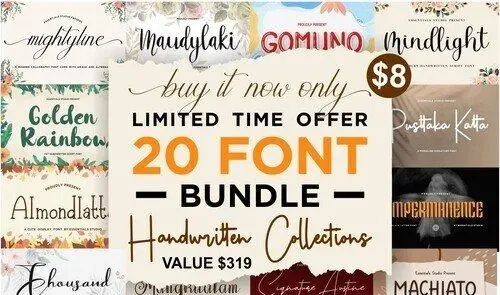
The Wonderful Collection Font Bundle
The Wonderful Collection Font Bundle offers a diverse selection of high-quality fonts designed to elevate your creative projects. This bundle includes a variety of font styles, from elegant serifs to playful scripts, ensuring you have the perfect typeface for any occasion.
• Multiple font styles: serif, sans-serif, script, and display
• Various weights and styles for versatility
• Easy to read and visually appealing
• Includes multilingual support for global reach
Ideal for branding, logos, web design, print materials, and user interfaces, these fonts will help you create stunning visuals that stand out.